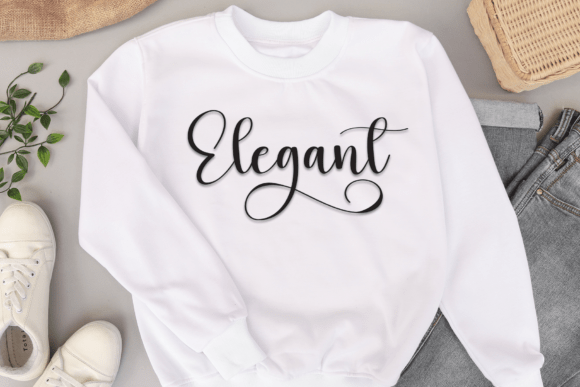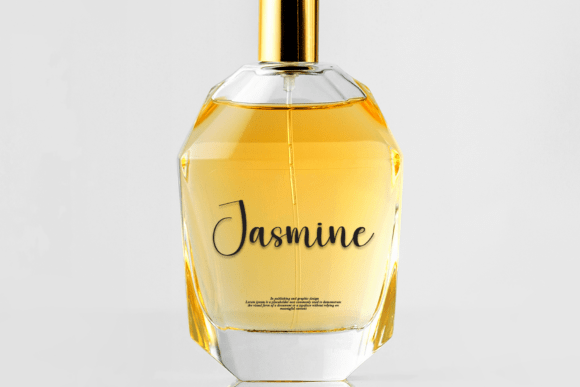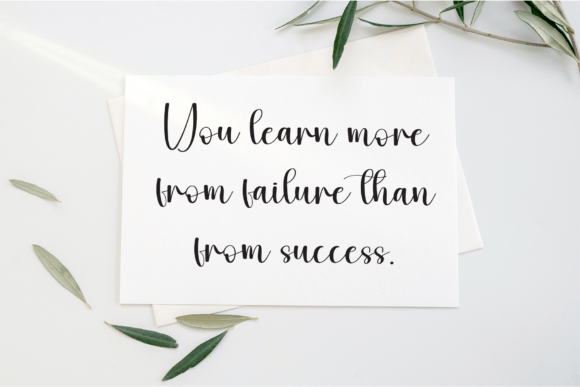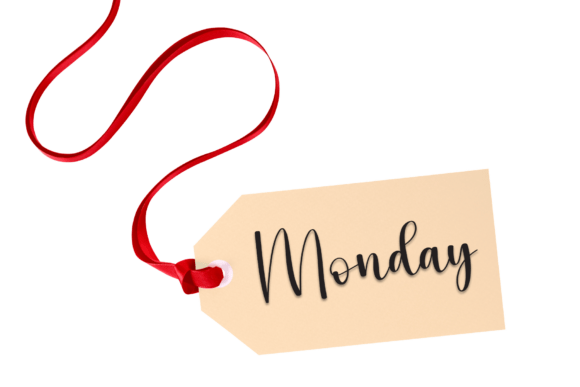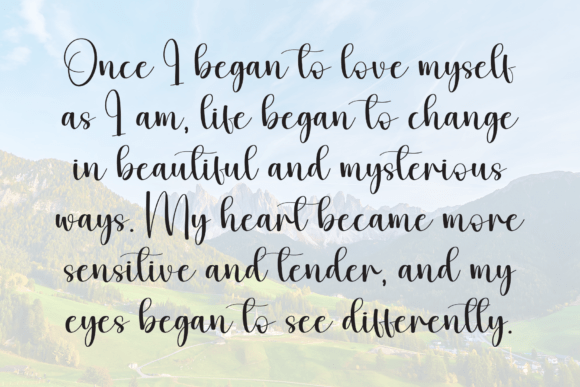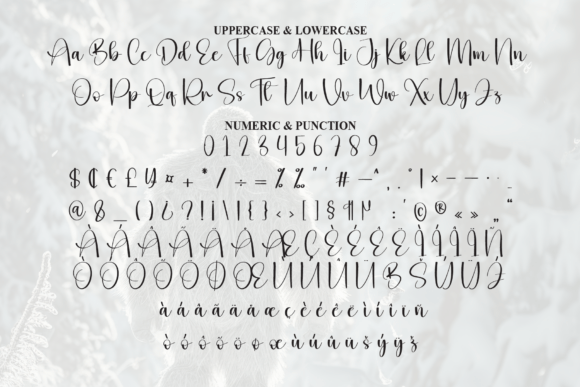
The Elusive Perfect Font: My Encounter with Bigfoot
I’ll never forget the frustration of working on a design project, hours spent searching for that one perfect font. My client wanted something that exuded elegance, yet had an artistic flair. I scoured the internet, tried out countless fonts, but nothing seemed quite right. That was until I stumbled upon Bigfoot, a stylish script font that has since become a staple in my design toolkit.
What Makes Bigfoot Special?
Bigfoot is more than just a font – it’s a statement piece. With its fluid brush strokes, dynamic curves, and expressive letterforms, it captures the essence of hand-painted calligraphy with a modern twist. This font is ideal for a variety of design projects, including logos, invitations, packaging, and social media graphics.
An Honest Review of Bigfoot
- ✨ Fluid brush strokes that give it a natural, hand-painted feel
- ✅ Dynamic curves and expressive letterforms that add visual interest
- 💫 Contemporary elegance that makes it perfect for modern designs
- 🎨 Versatility – it can be used for a wide range of design projects
While Bigfoot is an excellent font, it’s not without its quirks. For instance:
- 🤔 Legibility at small sizes – while it’s stunning at larger sizes, it can be a bit tricky to read at smaller sizes
- ⚠️ Limited availability of certain characters – some special characters may not be available, which can be a limitation for certain projects
The Story Behind Bigfoot
The story behind Bigfoot’s creation is one of passion and creativity. According to its designer, Bigfoot was inspired by the world of hand-painted calligraphy. With a goal of creating a font that exuded elegance and artistic flair, the designer spent countless hours perfecting the curves, strokes, and letterforms. The result is a font that’s both sophisticated and creative.
Q: What type of designs is Bigfoot best suited for?
A: Bigfoot is ideal for logos, invitations, packaging, and social media graphics, as well as any design project that requires a touch of elegance and artistic flair.
Q: Is Bigfoot a difficult font to use?
A: No, Bigfoot is relatively easy to use, especially for those familiar with script fonts. Its intuitive design and extensive features make it accessible to designers of all skill levels.
Q: How does Bigfoot compare to other script fonts?
A: Bigfoot stands out from other script fonts due to its unique blend of fluid brush strokes, dynamic curves, and expressive letterforms. Its contemporary elegance and versatility make it a standout choice for designers.